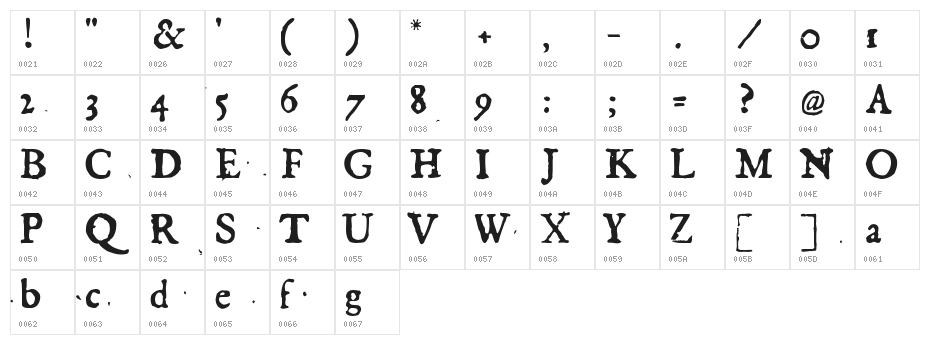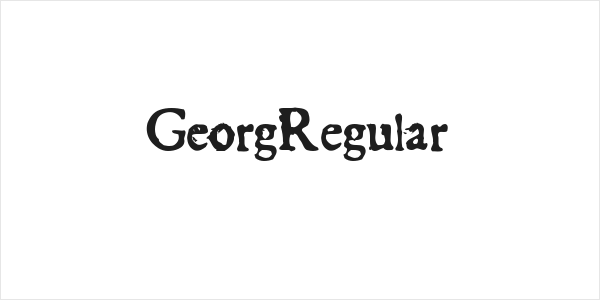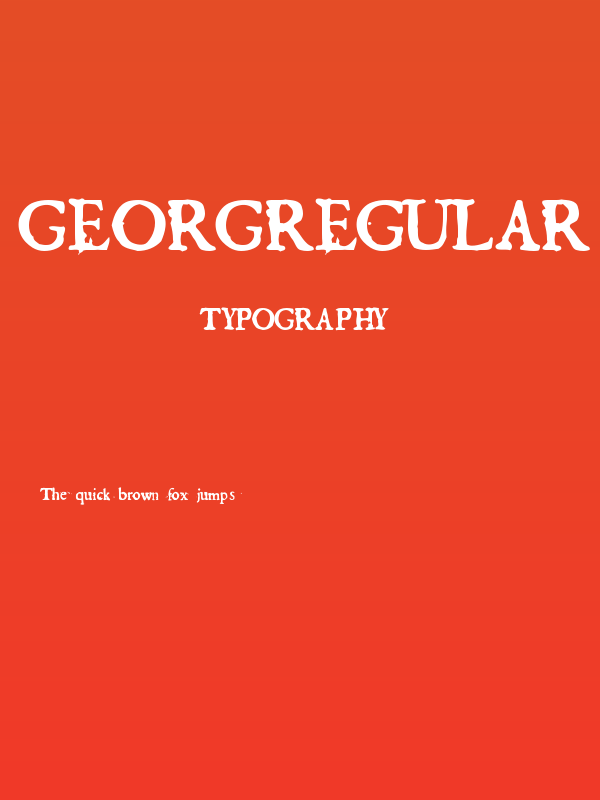
GeorgRegular Font
GeorgRegular Description
This font features a distinct, vintage style with a hand-drawn appearance, characterized by uneven strokes and a slightly distressed look. The uppercase letters are bold and prominent, while the lowercase letters maintain a consistent style with a unique flair. The numerals are equally stylized, adding to the overall antique feel. The special characters complement the alphabet with their quirky, artistic design. This font exudes a sense of history and craftsmanship, making it ideal for projects that require a touch of nostalgia or a handcrafted aesthetic.
| Overall Style | Vintage |
| Proposed Projects | Ideal for vintage-themed posters, book covers, branding for artisanal products, or any project seeking a handcrafted, historical touch. |